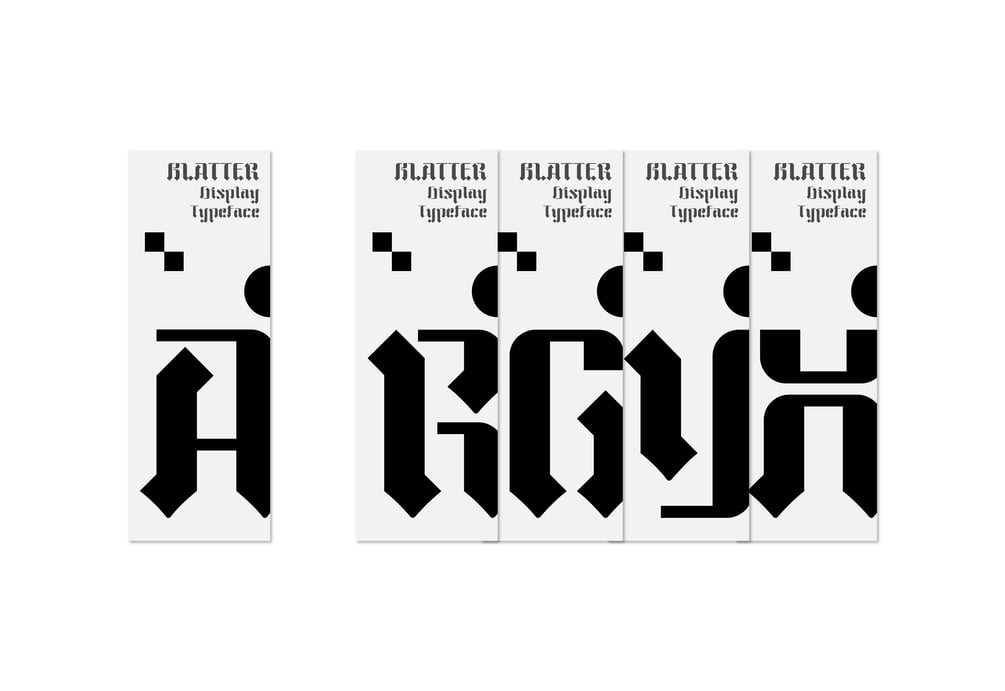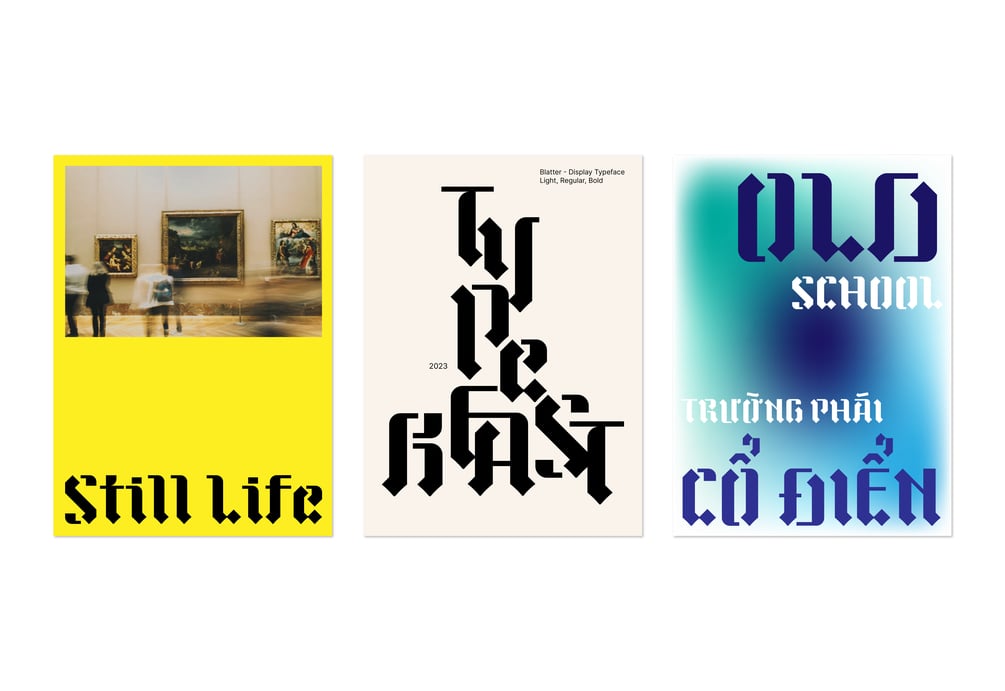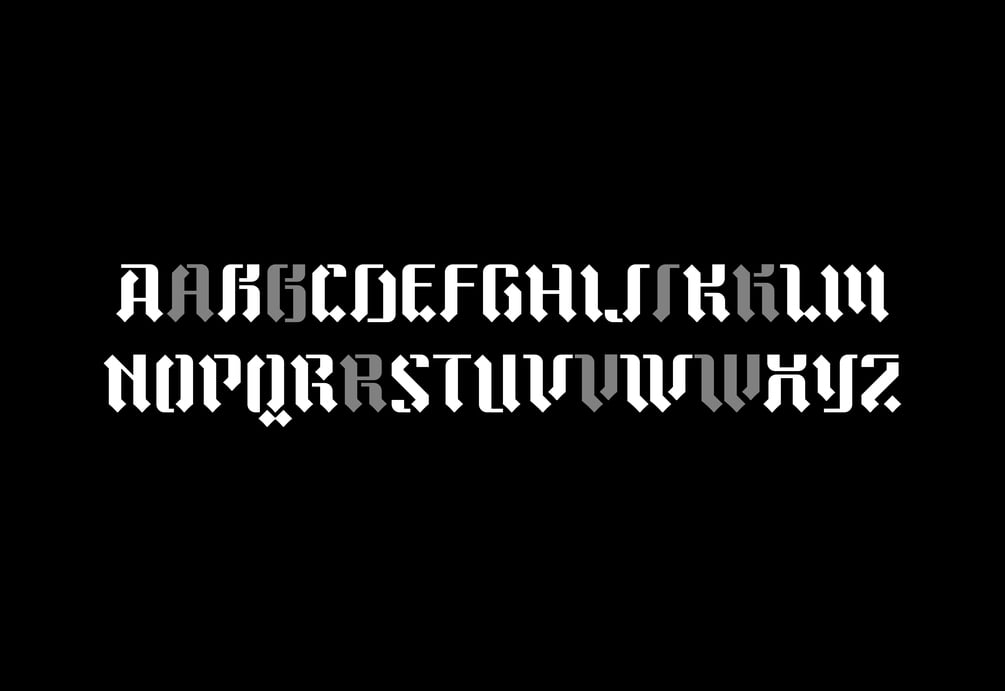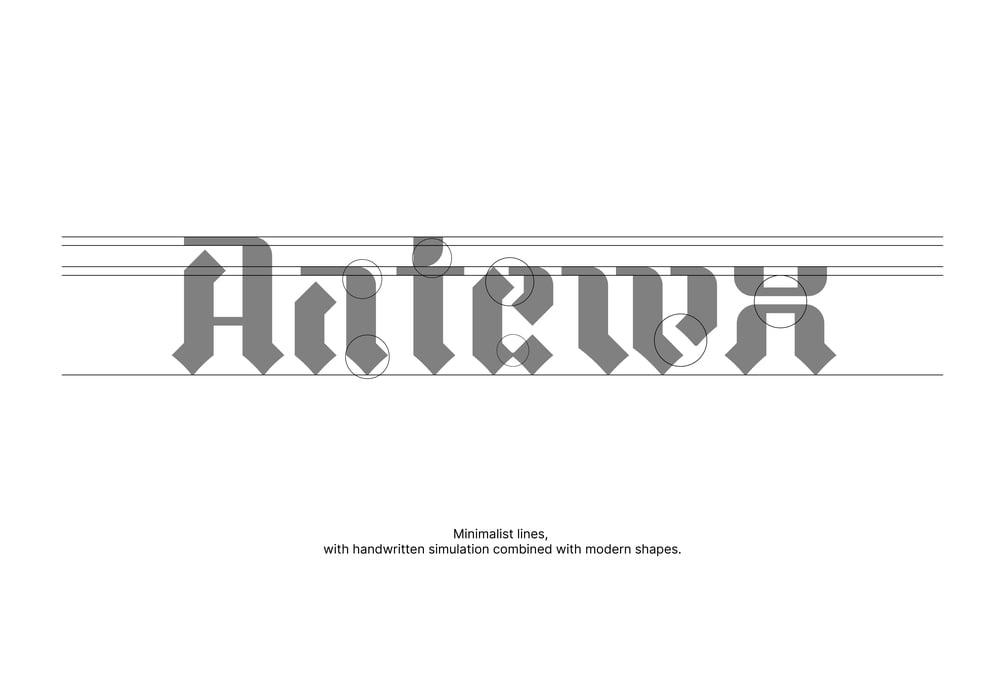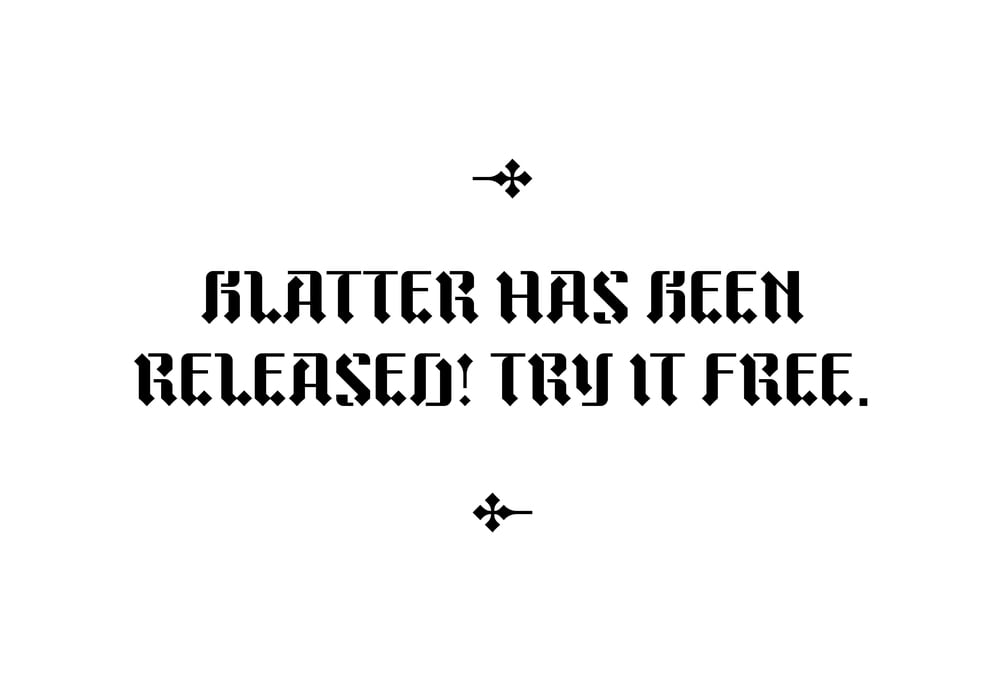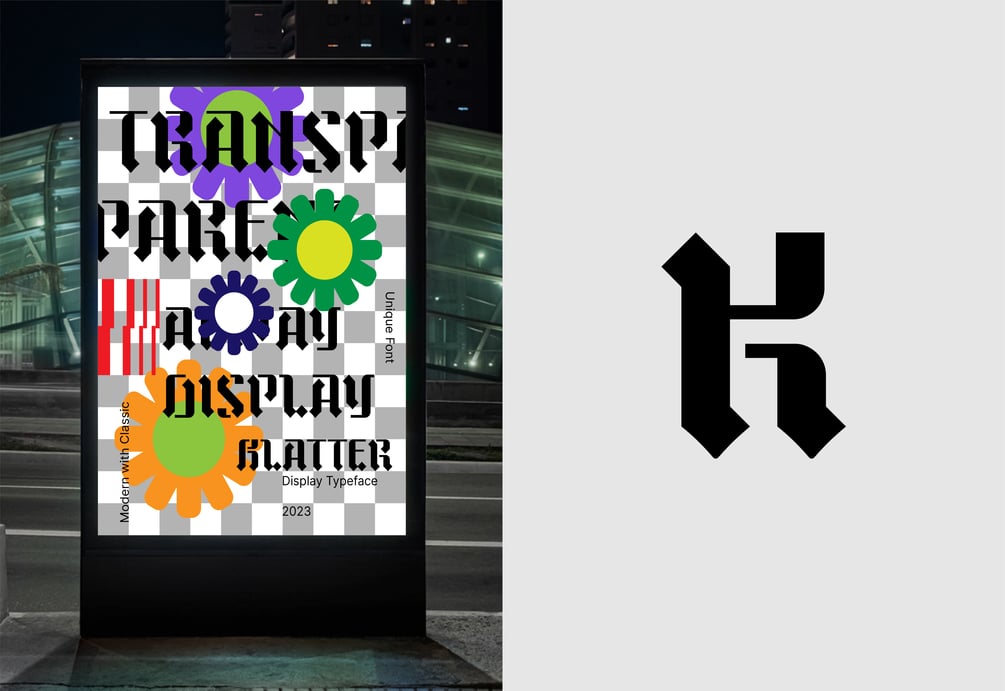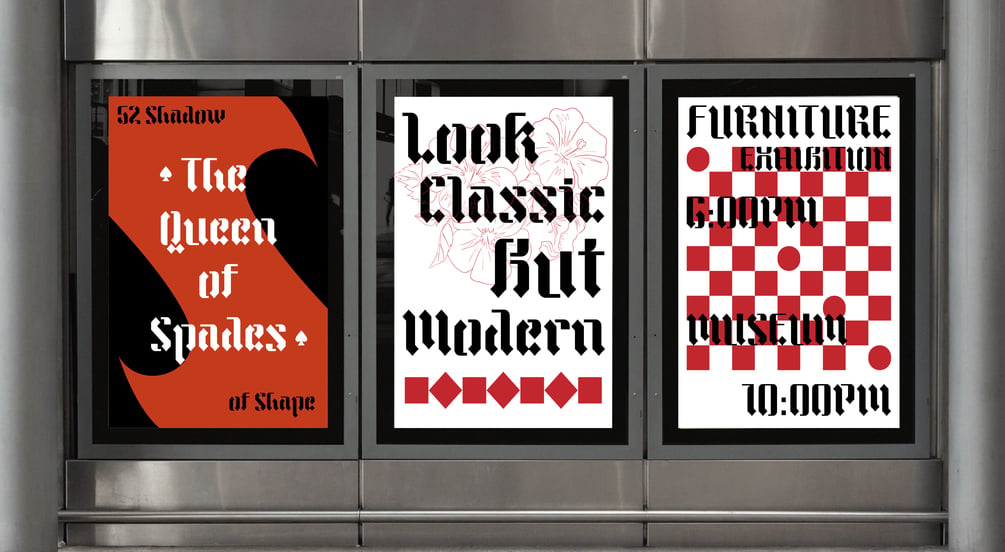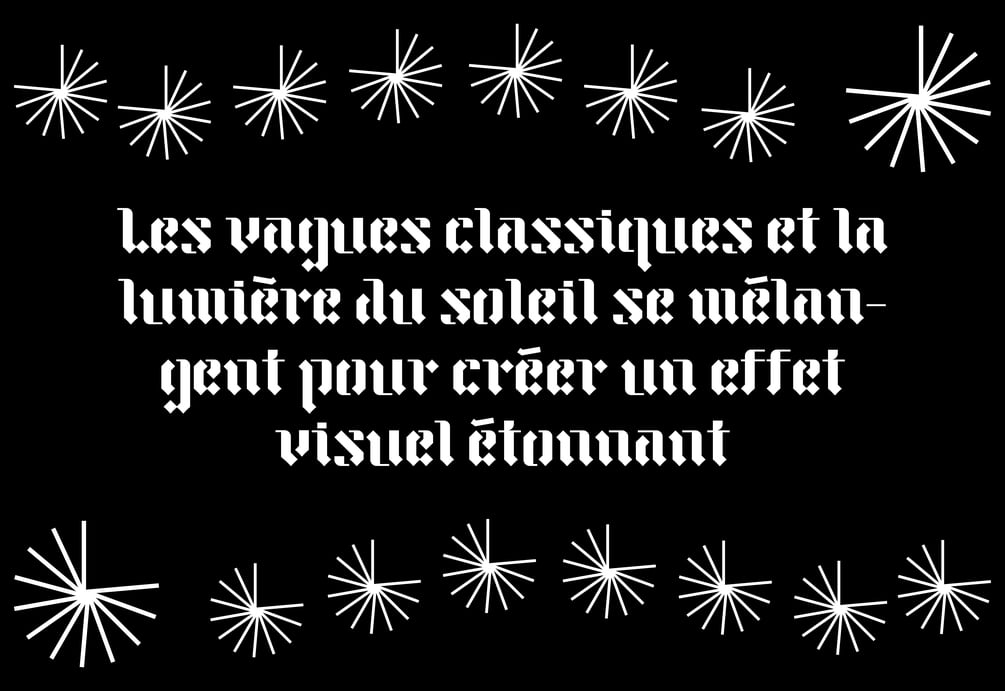
Blatter
Blatter Typeface - A Fusion of Modern and Blackletter Styles
Introducing "Blatter," a unique and versatile typeface born from a collaborative effort to blend modern aesthetics with the timeless charm of Blackletter. This font is the result of meticulous craftsmanship, offering a perfect balance between tradition and contemporary design.
Key Features:
• Distinctive Style: Blatter captures the essence of Blackletter while incorporating modern design elements, making it suitable for a wide range of projects.
• Versatility: With three weights (Light, Regular, Bold), Blatter adapts seamlessly to various design applications, from headlines to body text.
• Multilingual Support: Have 500+ Glyps Blatter supports a diverse range of languages, ensuring your message reaches a global audience with clarity and style.
characters are thoughtfully spaced to enhance legibility, even in display settings.
Usage Tips:
• Use Light for elegant and subtle designs.
• Choose Regular for a balanced and classic look.
• Opt for Bold to make a bold statement in your designs.
Ideal For:
• Branding and Logo Design
• Editorial and Print Design
• Website Headings and Titles
• Apparel and Merchandise